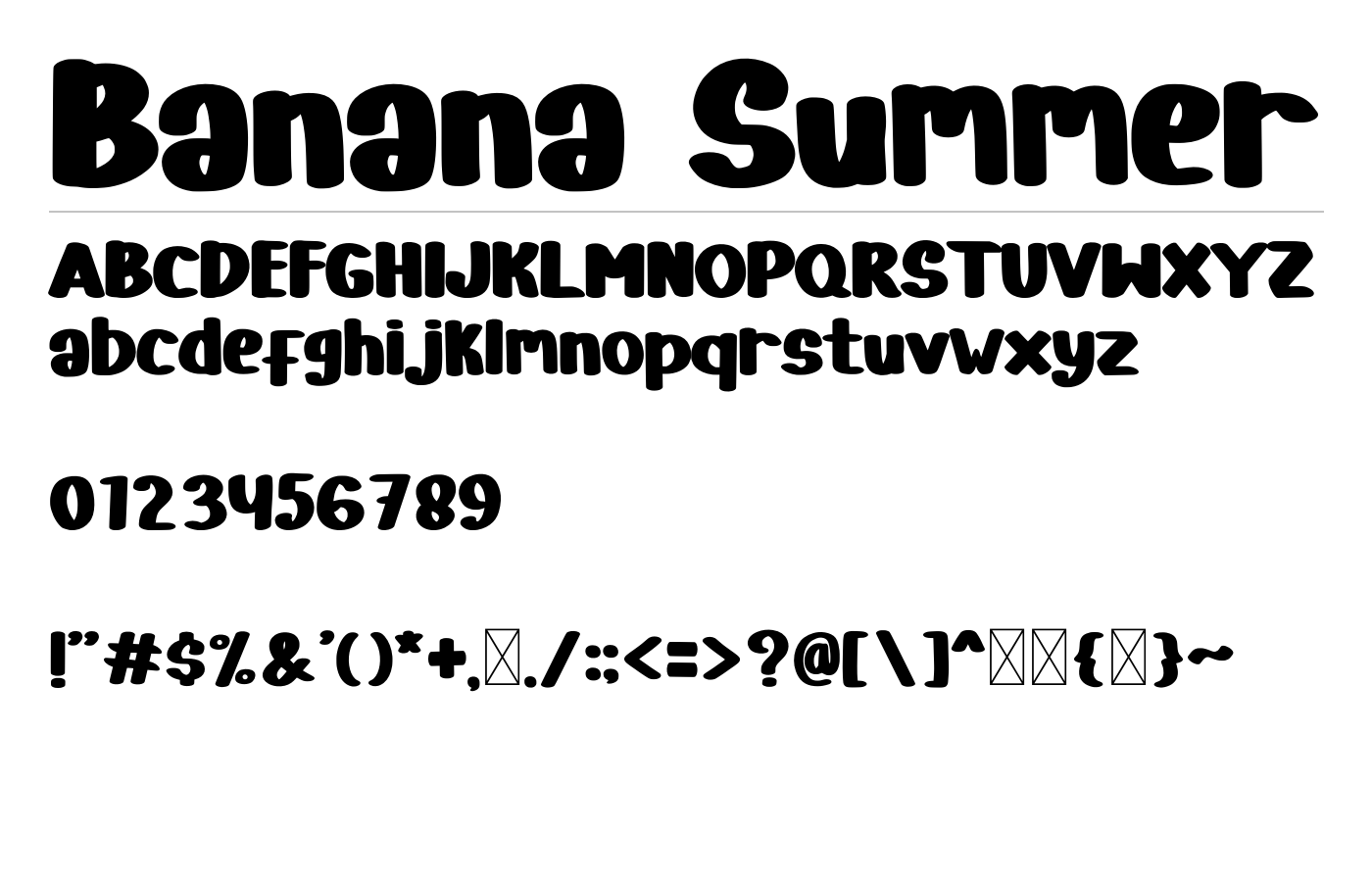
Banana Summer is a playful and bold sans serif font with rounded, chunky letterforms that bring a friendly, casual vibe. Its thick strokes and soft curves make it perfect for fun and approachable branding, children’s materials, or eye-catching headlines. This font shines in informal designs where a warm, inviting, and slightly whimsical tone is desired.
Banana Summer Font
About Banana Summer Font
| Font family | Banana Summer Font |
| Designer | Minimalist Eyes |